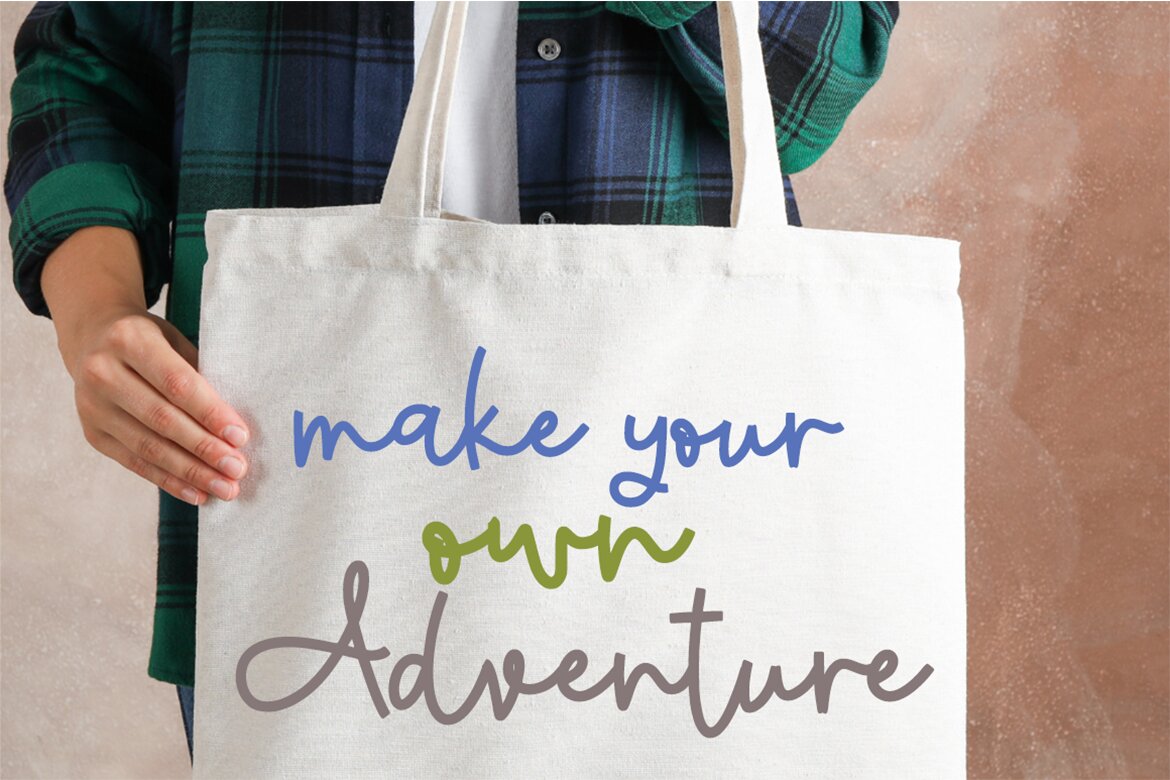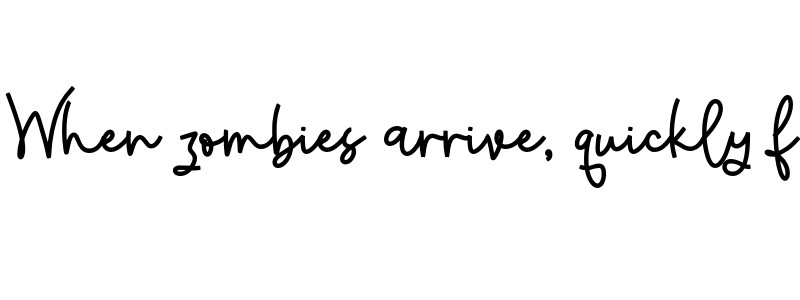
Analog Script FREE Font
Analog display font, that has a sweet character. Whether you use it for cartoon-related designs, children's games, or just any creation that requires a lovely touch, this font will be an amazing choice.